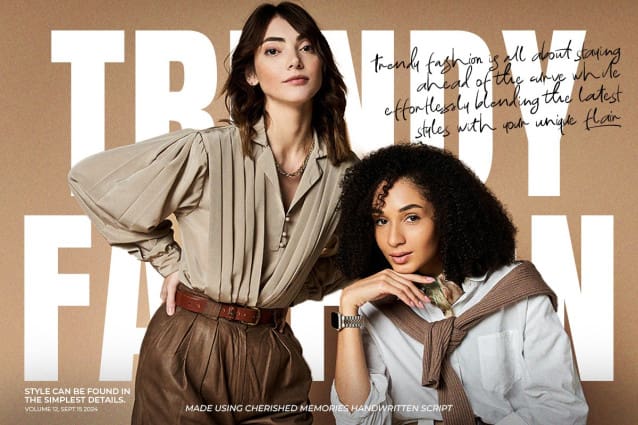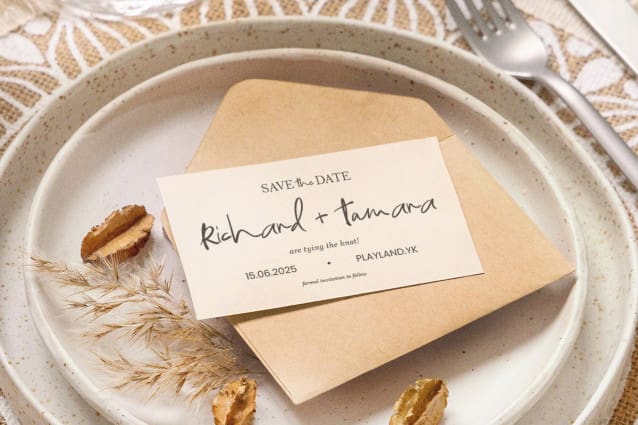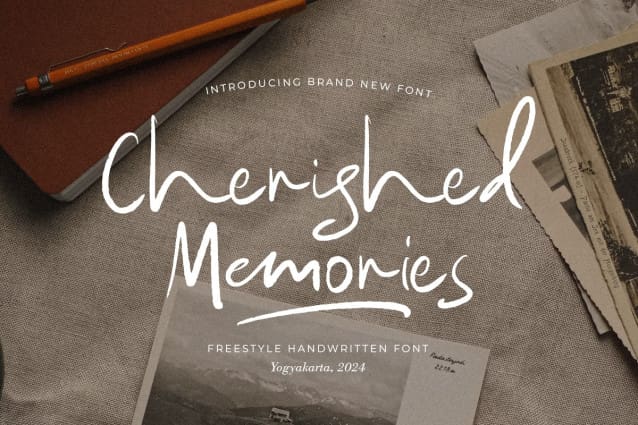
Cherished Memories Font
Cherished Memories Font, the hand-drawn font that exudes effortless freestyle and chic sophistication. This font is perfect for adding a touch of elegance to any design project, especially in logo, and the other various formal forms such as invitations, labels, logos, magazines, books, greeting / wedding cards, packaging, fashion, make up, stationery, novels, labels or any type of advertising purpose.